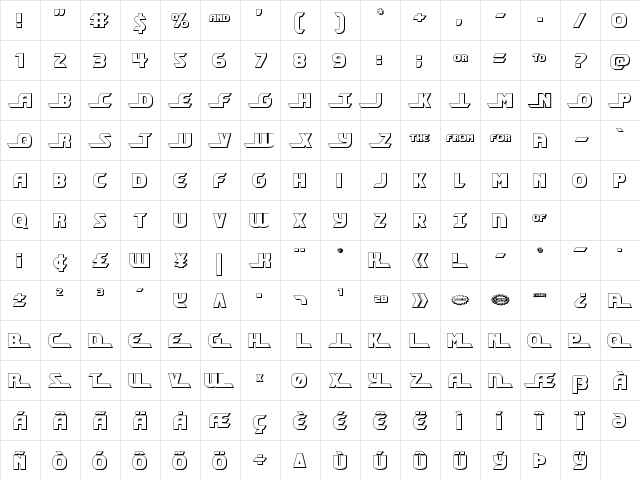
Shining Herald 3D Regular
Shining Herald 3D Family
Design Context for Shining Herald 3D
Shining Herald 3D is a composed and adaptable typeface that performs quietly and consistently across a wide range of design contexts.